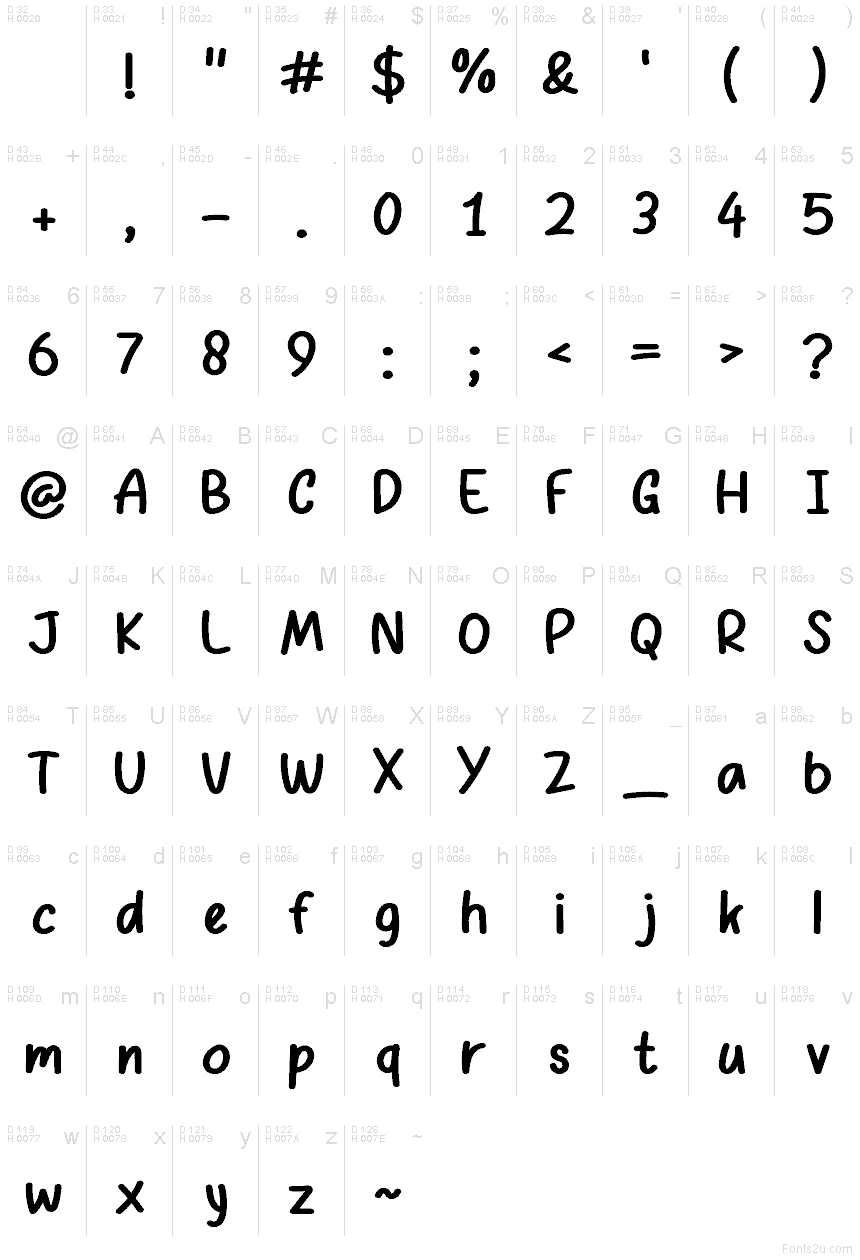
Windsol Regular
Windsol font by Valiant Project is a free handwritten display font. It gets the balance right between warm, human scribble and clean, everyday readability: stout, nearly monoline strokes, pillowy curves, and rounded terminals give it a soft, inky presence without clutter. The rhythm feels steady with a gentle bounce, so headlines read smoothly while still looking personal and approachable.
Using Windsol, your titles and tags pop on product packaging, cafe menus, kid-friendly branding, event invites, stickers, and social posts. Its open counters and even spacing hold up at medium to large sizes, especially on textured backgrounds. Pair this free font with a tidy sans—try a light grotesk—so Windsol does the talking while the body copy stays crisp.